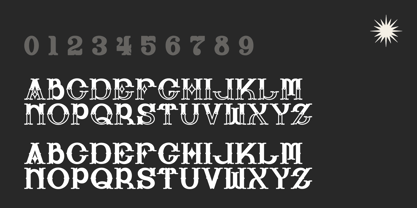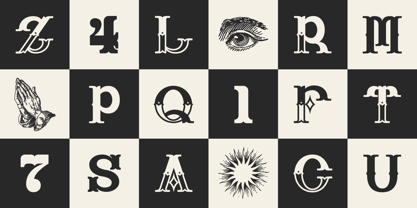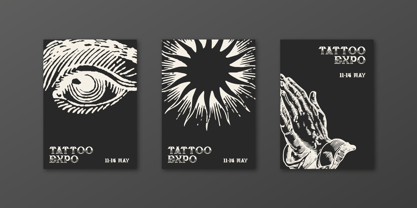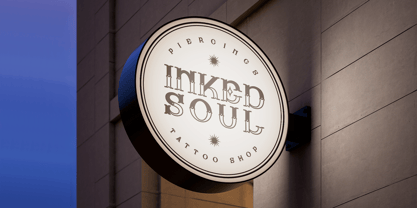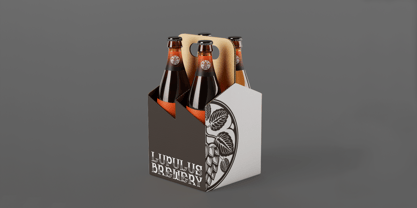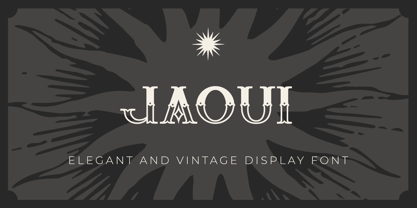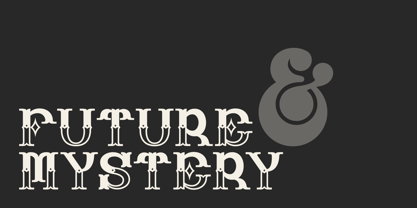
Jaoui
by Mirko Carcereri
The Jaoui Font Family was designed by Mirko Carcereri and published by Mirko Carcereri. Jaoui contains 1 styles. More about this family
This font was born from magic, occult and mystery. Jaoui comes from the characters of old Ouija boards (as you might have guessed from the name) that communicated with countless ancient spirits now forgotten. It’s a solid serif whose broad strokes and prominent serifs give it a bold, impactful, and at times mysterious character. Its vintage and elegant look makes it suitable for headlines that need to attract attention, but also for branding, from tattoo studios to barbershops, including breweries. When used together with woodcarving vector graphics it creates the perfect combo. DISCLAIMER: If after using it you hear voices saying your name at 3 am, don't worry, it's completely normal.